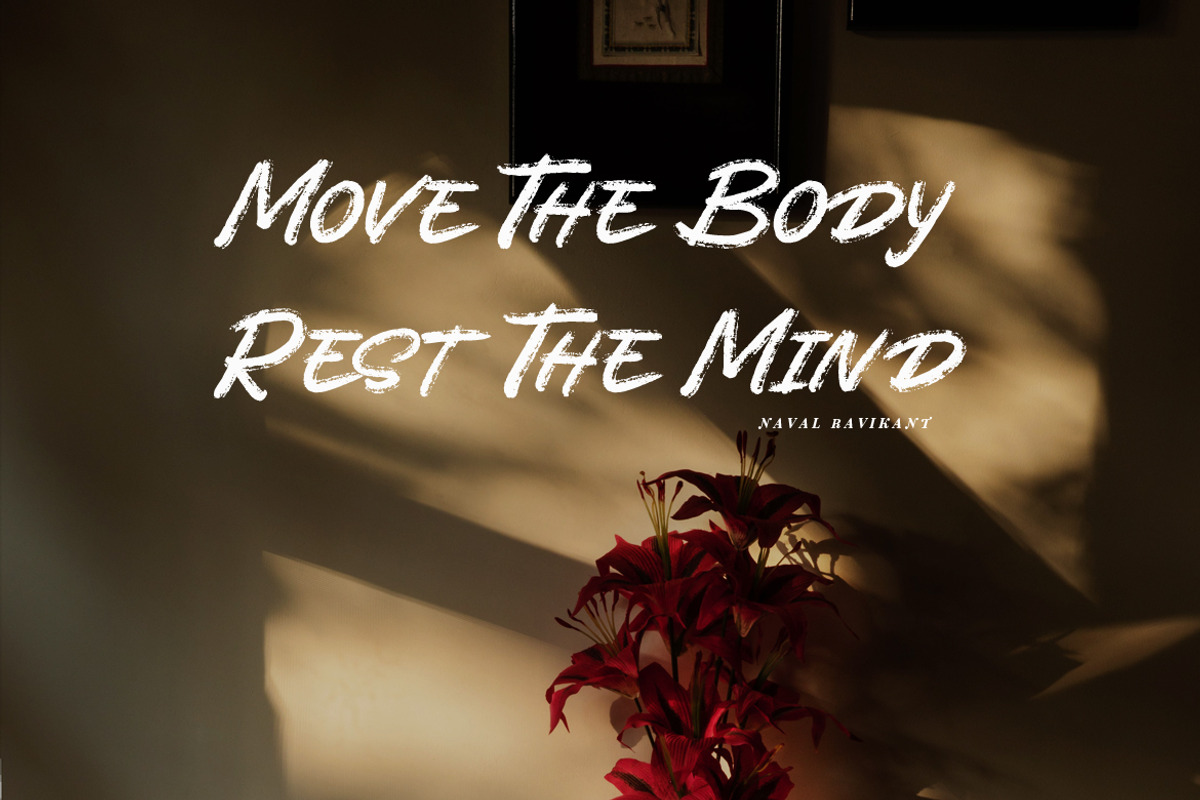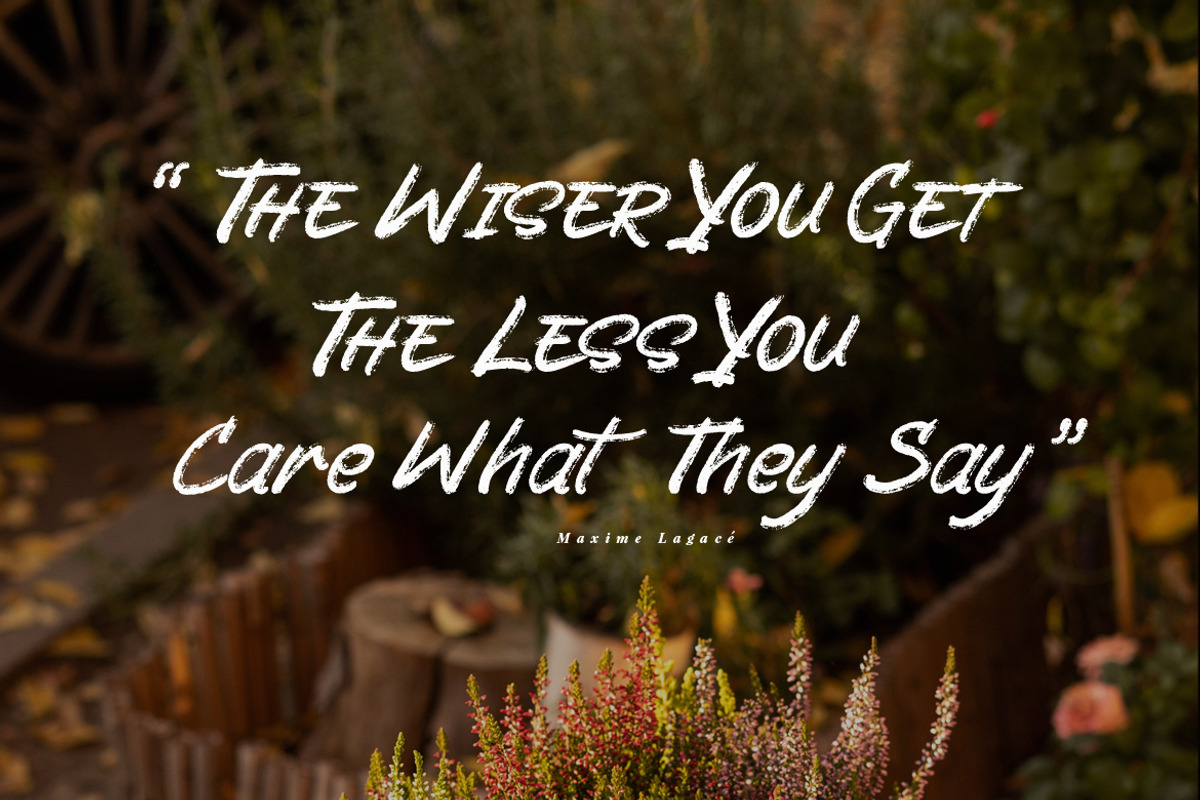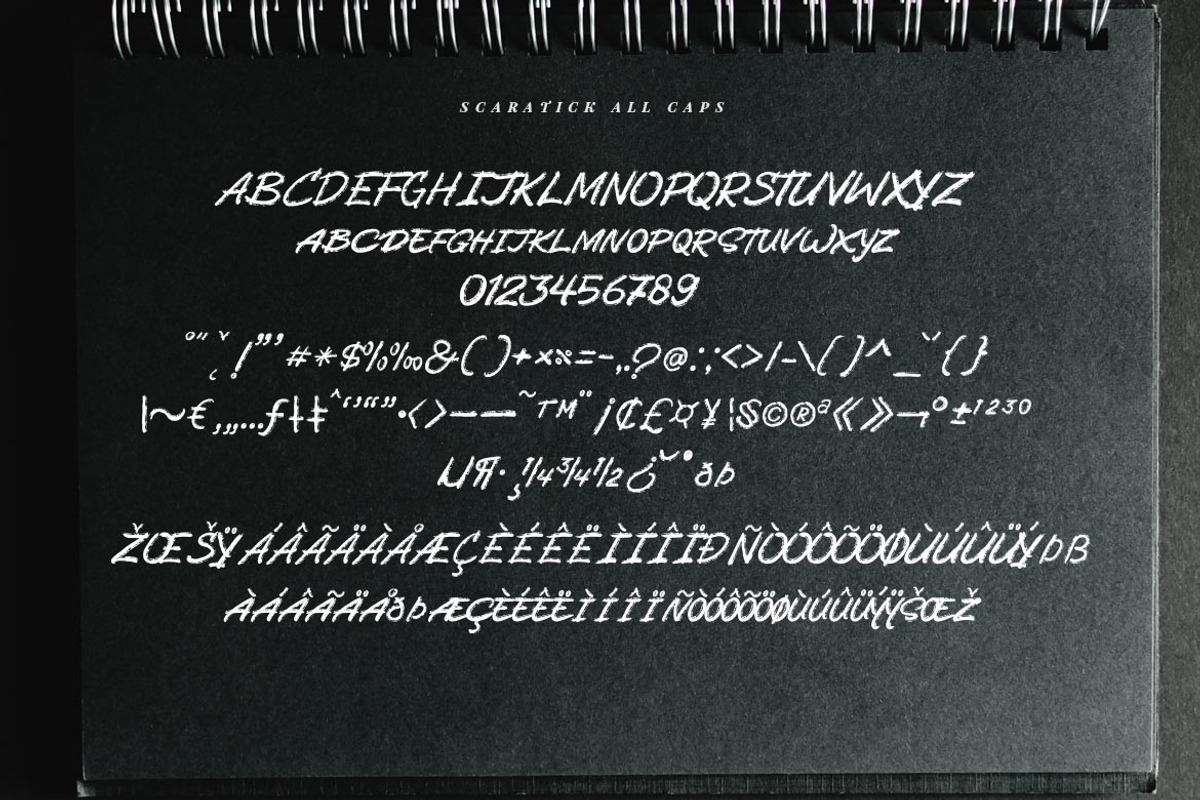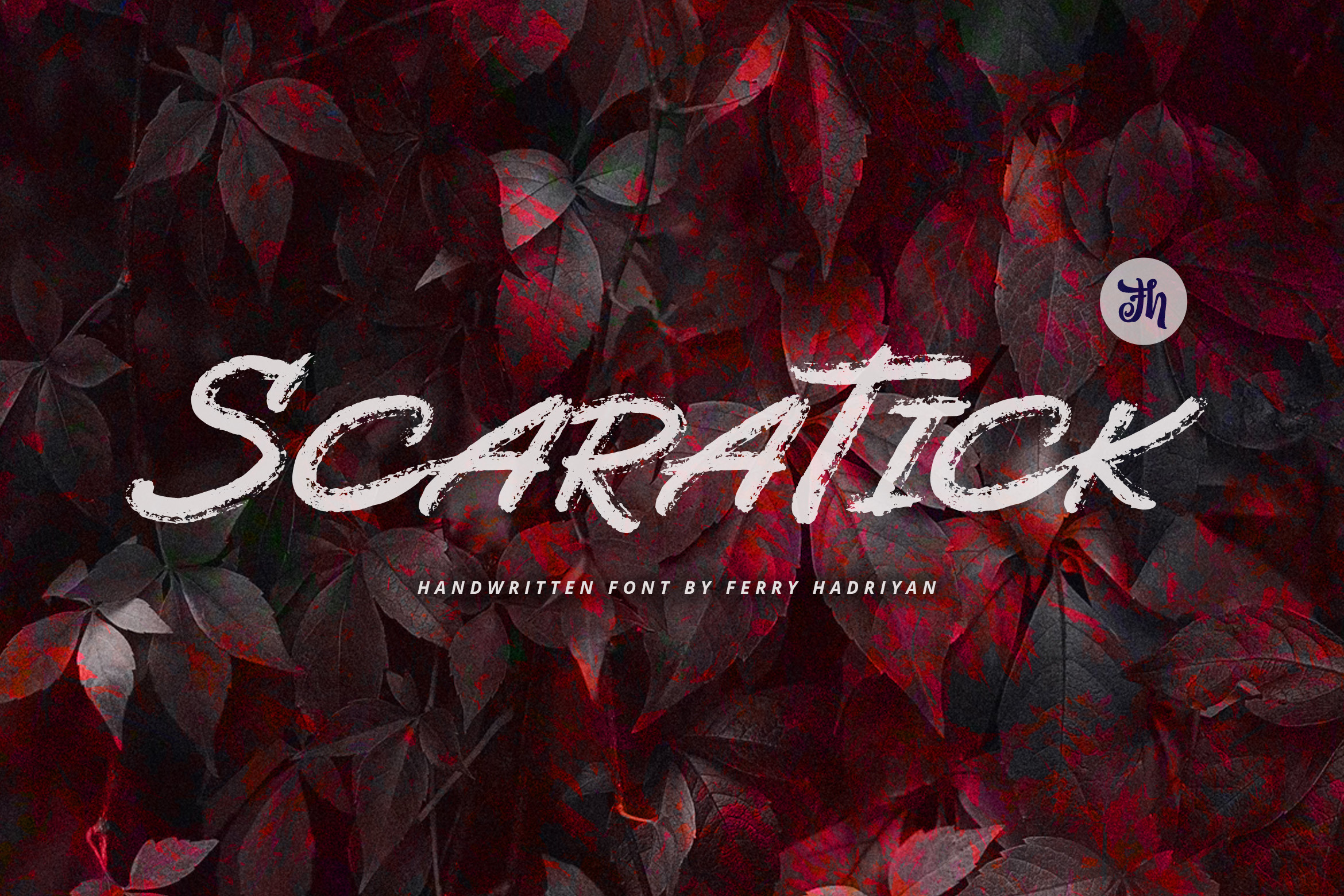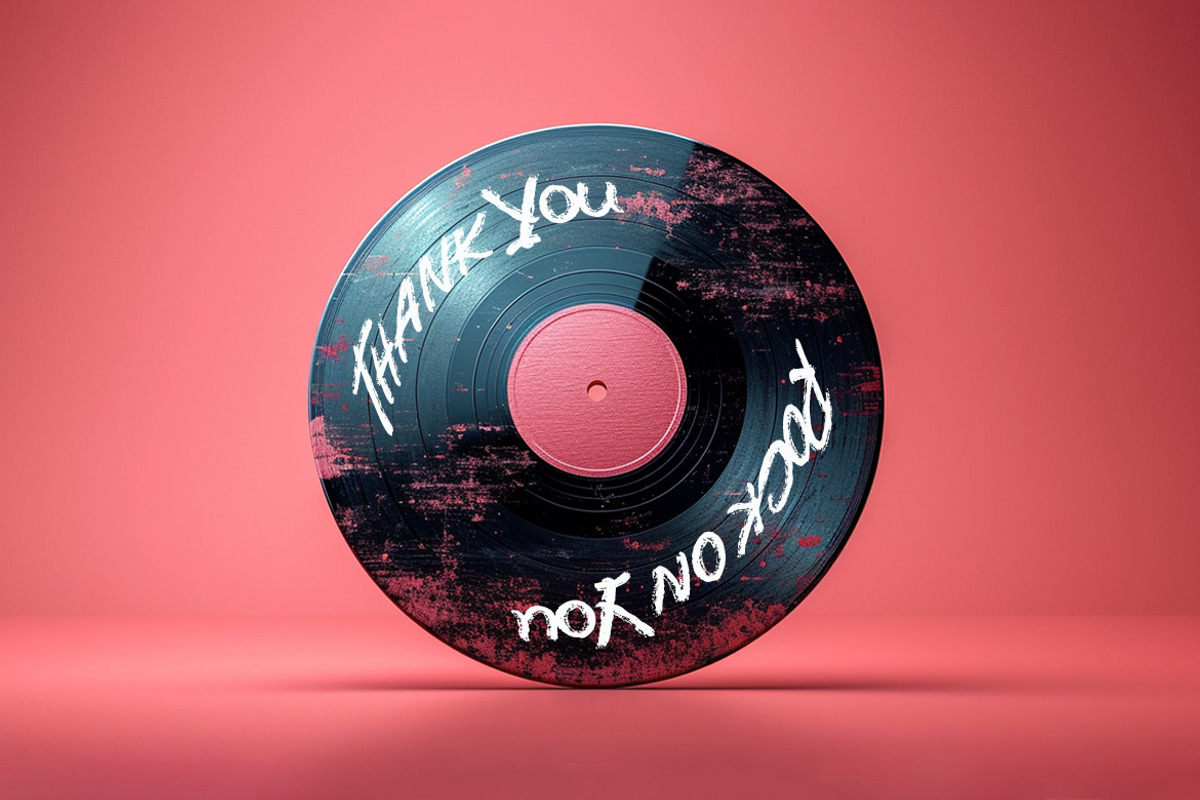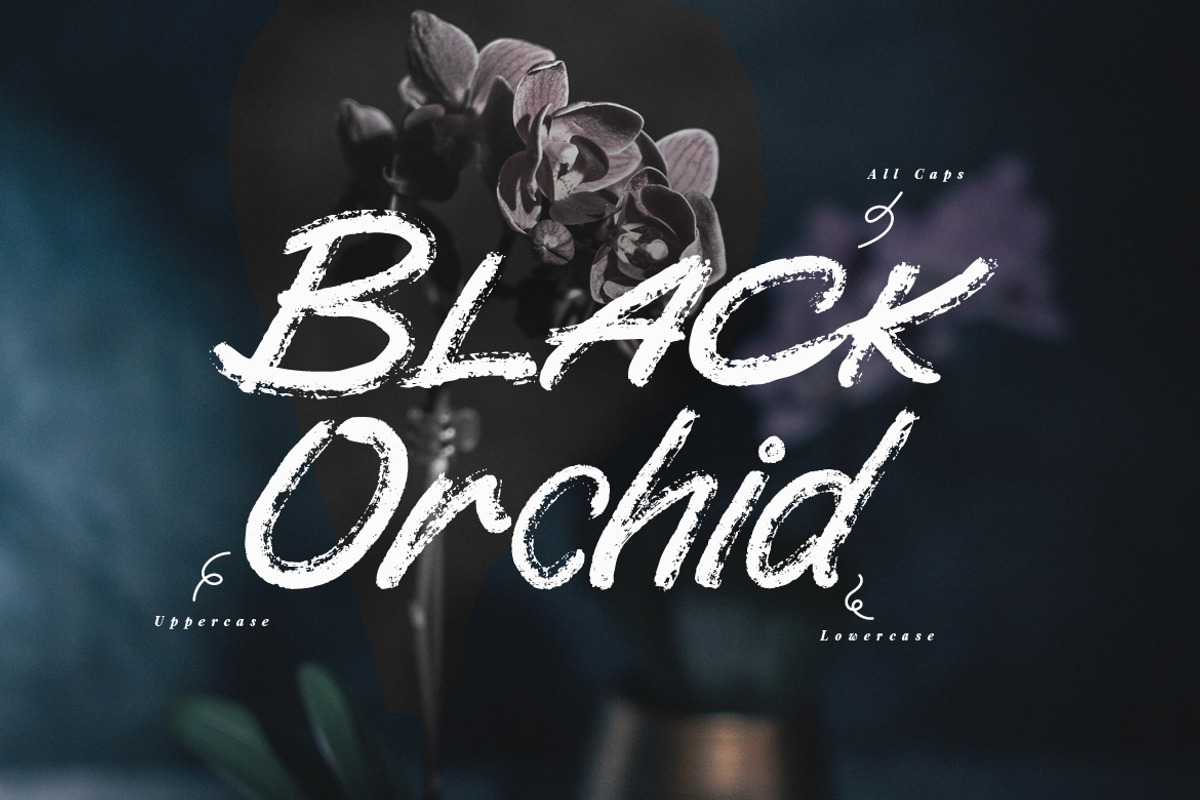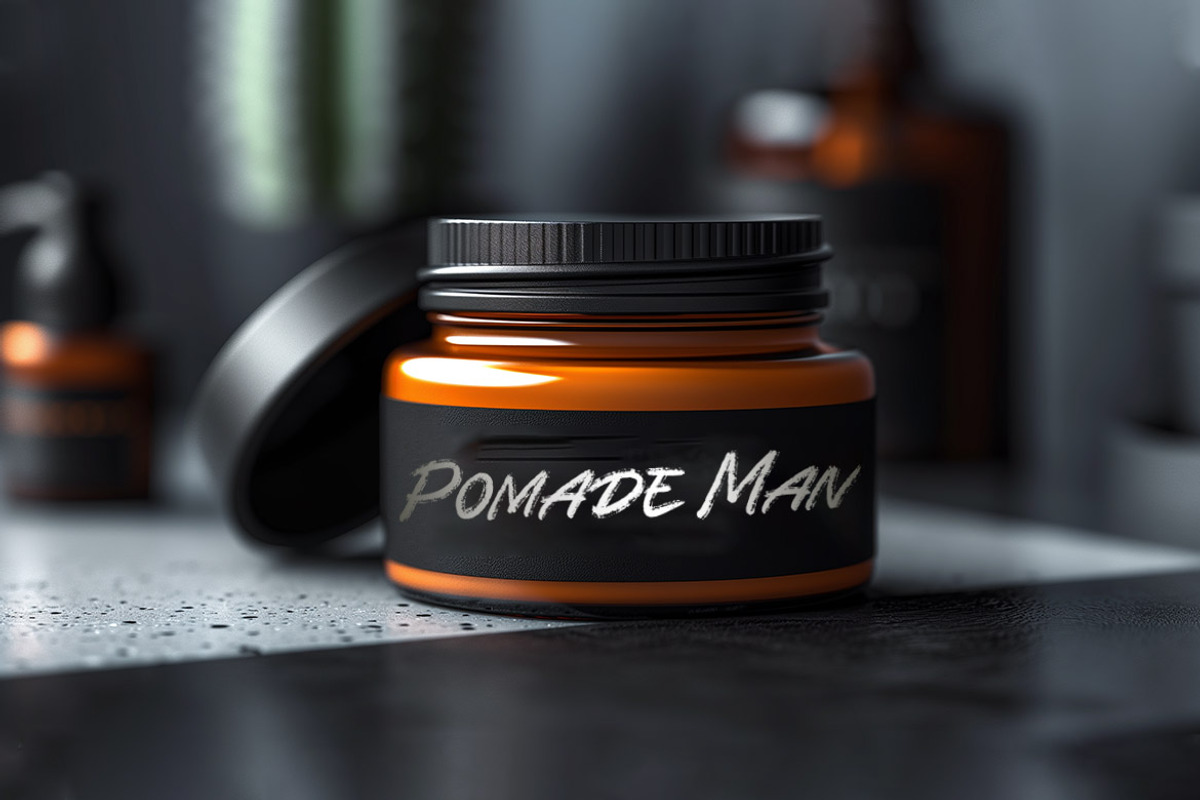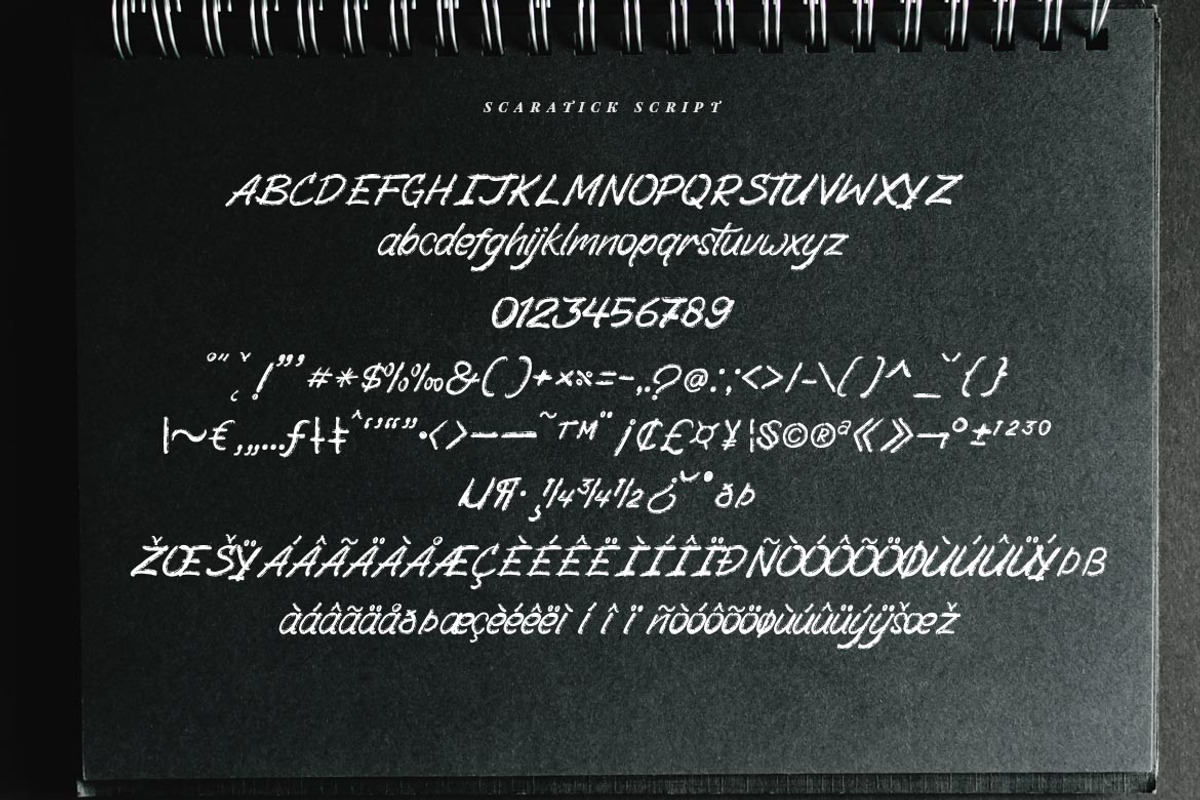
Scaratick - Handwritten Font Family
Scaratick is scipt fonts with handwritten and grung dry brush style, with OpenType feature include of the font. Suitable for design, element design, event, logo, and awesome work, etc...
Feature Of The Font:
All Standard Characters, Symbol, Multilanguage
Unique style fonts